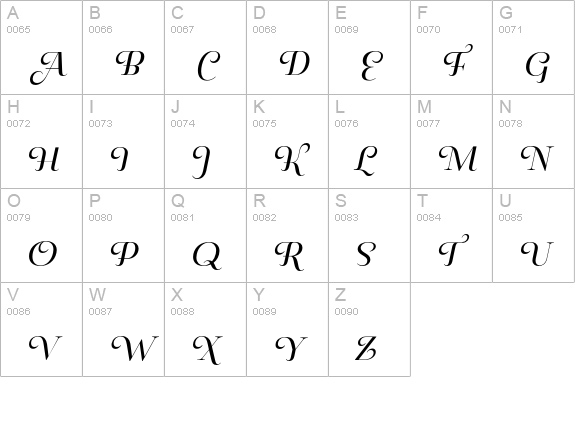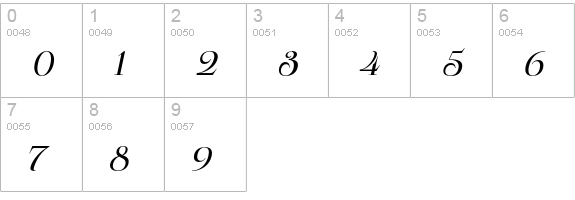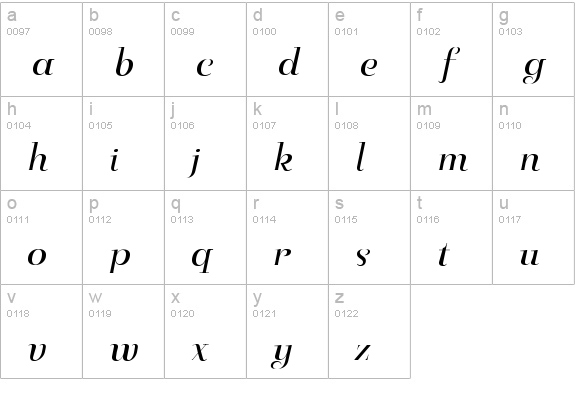
Pauline Didone Regular Italic Font Details
Pauline Didone Regular Italic is the standard, neutral, italic variant in the Pauline typeface family \xE2\x80\x94 well suited to general body text, paragraphs, and standard typographic work.
Pauline Didone Regular Italic font is a graceful and elegant typeface that exudes sophistication and charm. Its slanted, italic design adds a touch of flair and personality to any project. The delicate serifs and refined letterforms give this font a classic yet modern feel, making it perfect for a wide range of design applications. What makes Pauline Didone Regular Italic even more appealing is that it is available for free download at FontsMarket.com. This means that you can easily access this beautiful font and use it in your projects without any cost involved. Whether you're working on a branding project, invitation design, or any other creative endeavor, Pauline Didone Regular Italic is sure to elevate your work with its timeless elegance and style. Download it today and add a touch of sophistication to your designs.